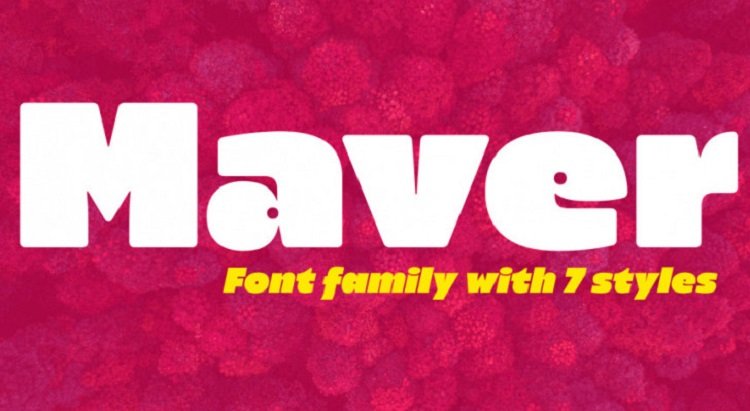
Maver Sans Font
Maver Sans Font is a 7 – style font family designed by Ani Dimitrova. Maver containing Regular, Italic, Round, Round Italic, Modify and Modify Italic weights. All weights contain standard ligatures, proportional figures, tabular figures, old-style figure, numerals, and arrows, matching currency symbols and fraction. The fonts are carefully hinted and its wide proportions make them a perfect choice for screen usage. This style palette offers a flexible range for display typography. The Maver type family is ideally suited for magazines, branding, posters, as well as web and screen design and more.